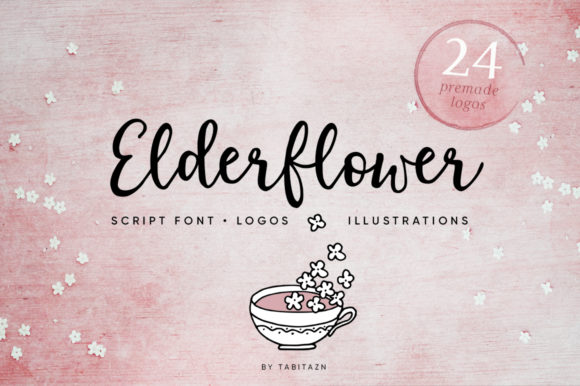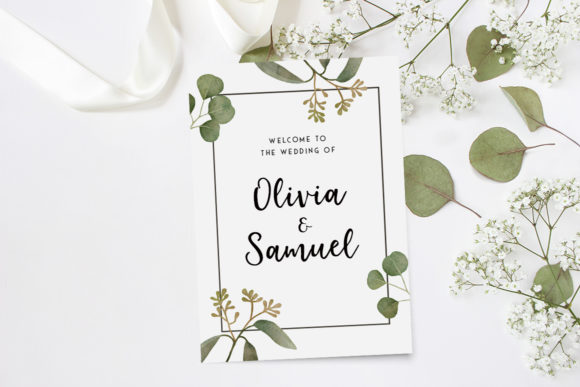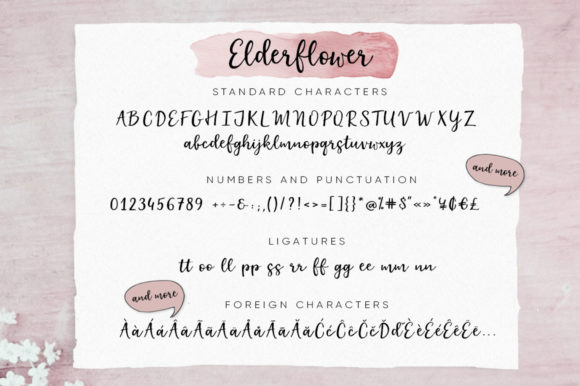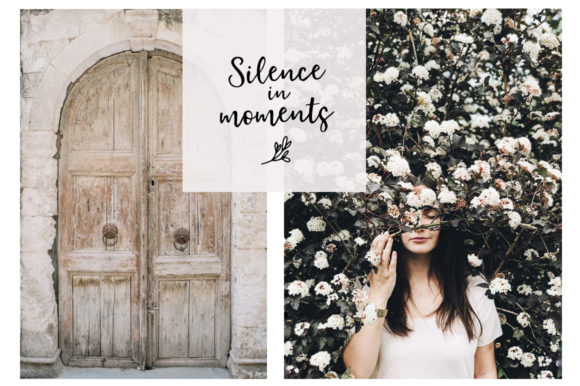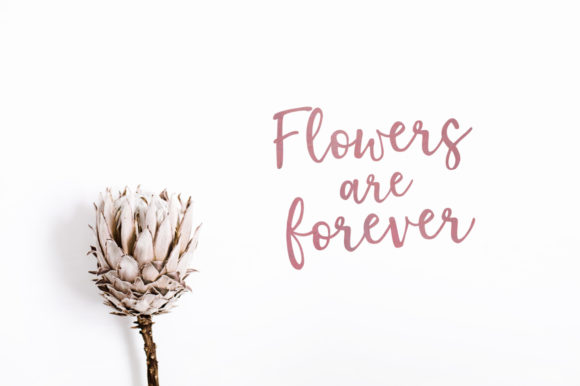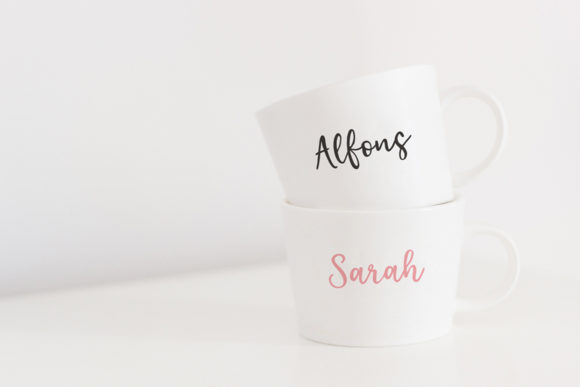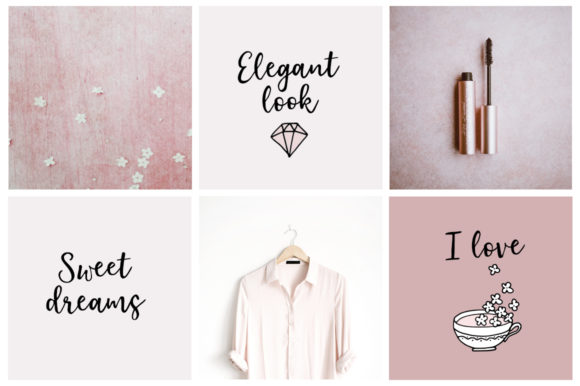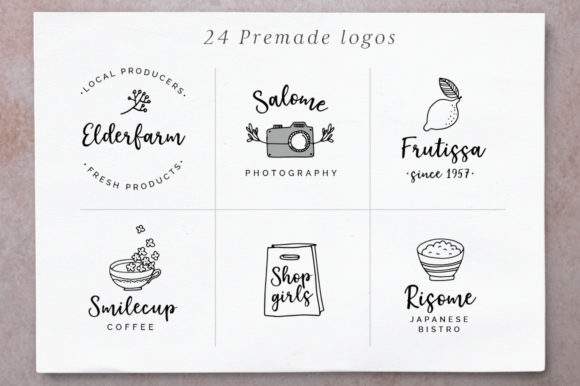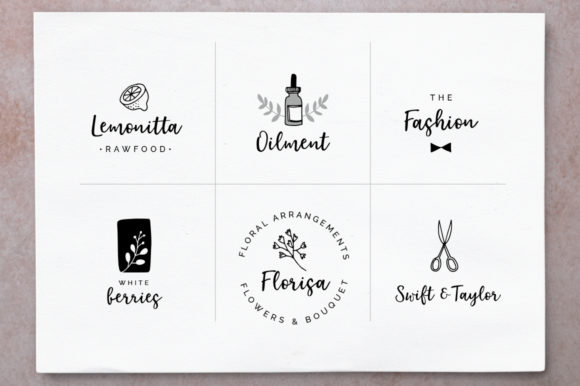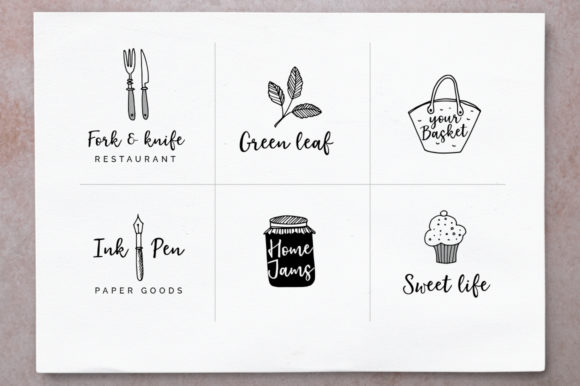
Elderflower Font
About Elderflower Font
The Elderflower is a cute script font with a bunch pre-designed logos and doodle vector illustrations.
The set contains 70 BONUS elements.
45 floral and feminine doodles – just combine the graphic objects that you like with your text – the possibilities and variations are endless. Or you can use the fully editable 24 pre-made logo templates. With this pack you can create your own logos, greeting cards, invitations or decorate your gifts, crafts, blog or website in a minute!